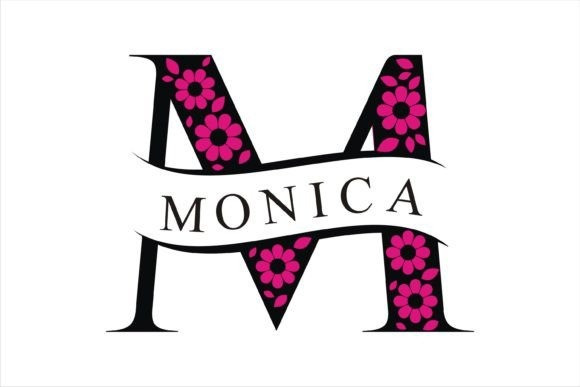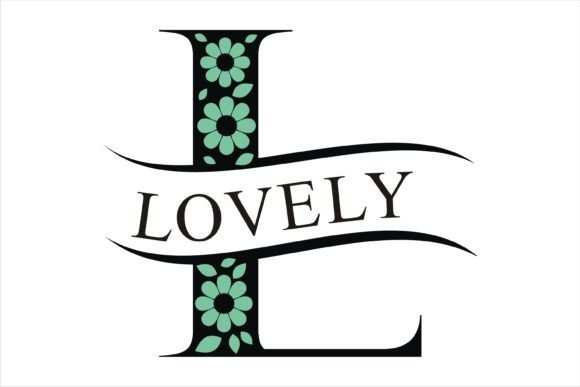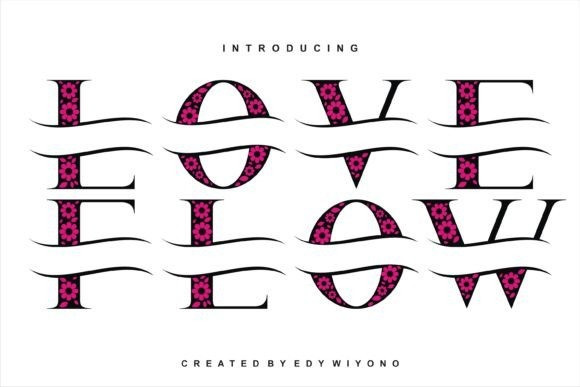
Love Flow Font
Love Flow Font is a decorative font with an elegant and decorative flower frame theme. This font is perfect for invitations, business cards, book cover designs, and other design materials. Chic and jolly, this font will brighten up each of your designs. Add it confidently to your projects, and you will love the results.